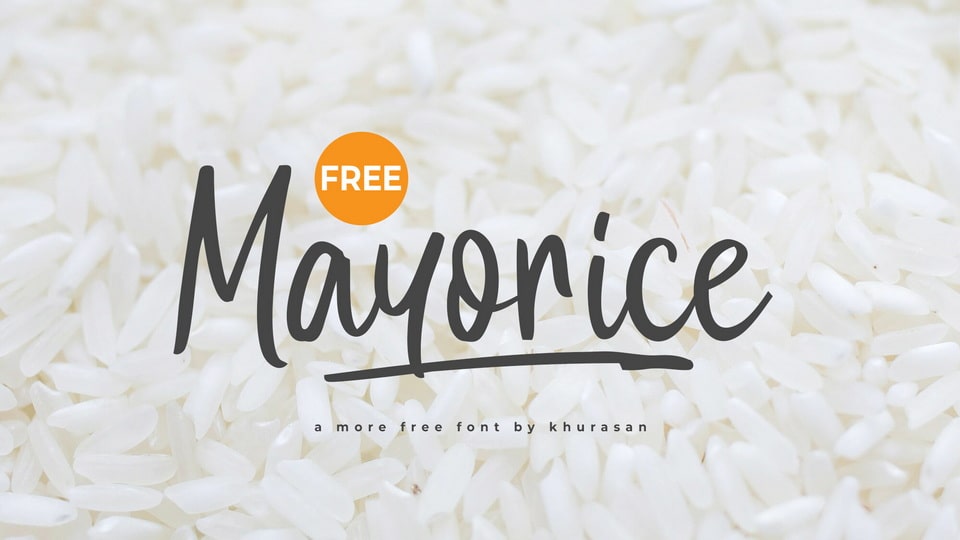
Download Mayorice font, a casual and organic handwritten typeface with a lively bouncy flow. Its free-spirited strokes and natural rhythm give it a fresh, effortless feel.